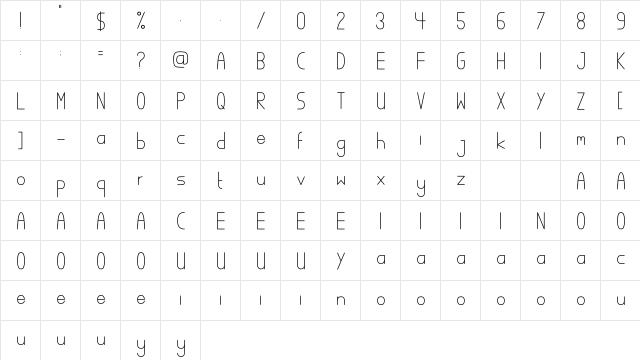
Scenery Regular
| Foundry | Faris Graphic Art |
| Designer | Faris Yoga Savero |
Design Context for Scenery Typeface
Scenery offers clean, dependable letterforms without strong stylistic allegiance, making it a practical choice for designers who need flexibility.
Pro Tip: Use Scenery in both headline and body roles to test its range before committing to a single application.